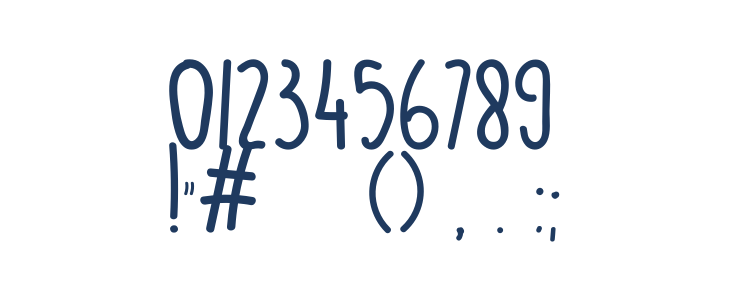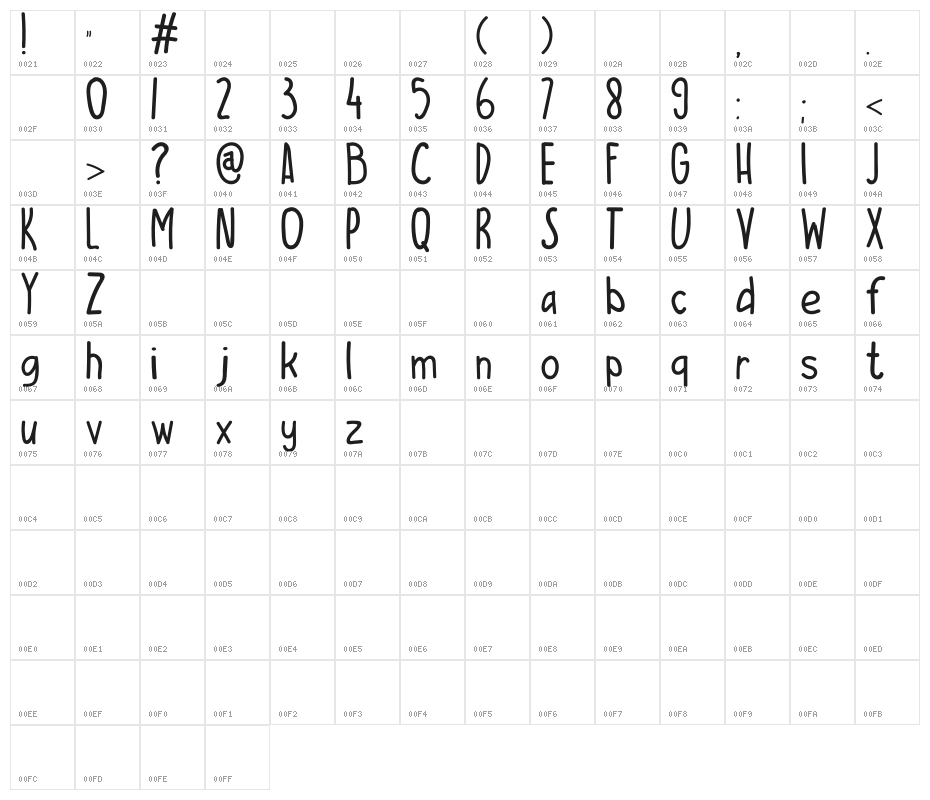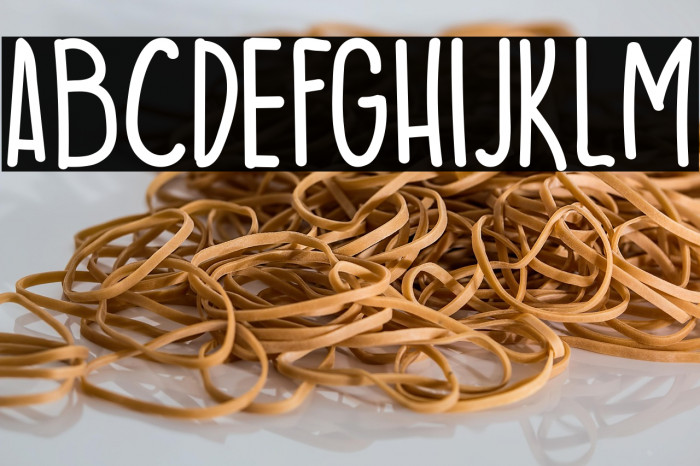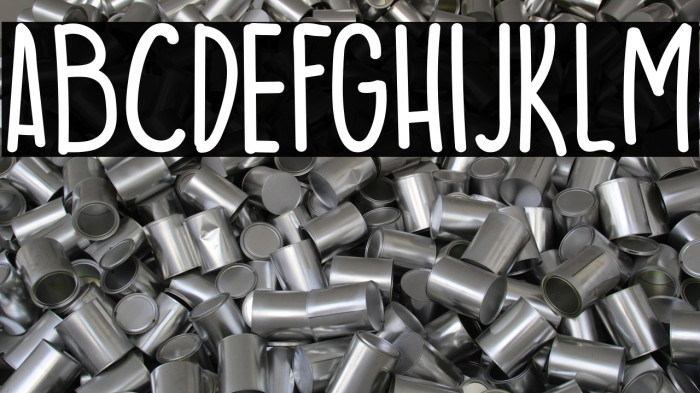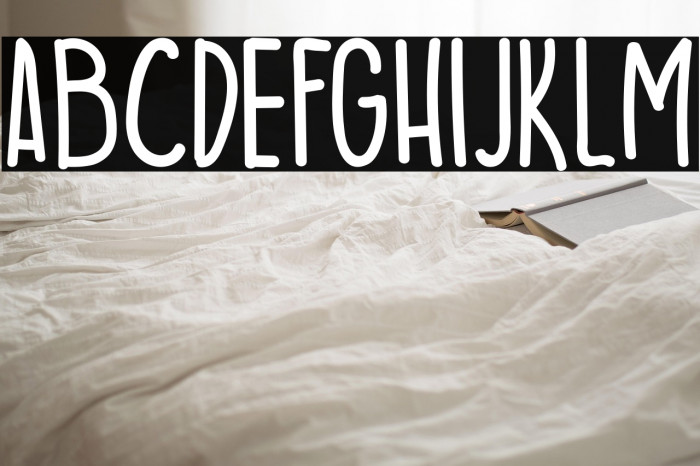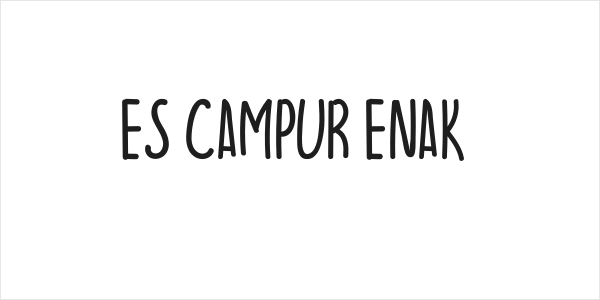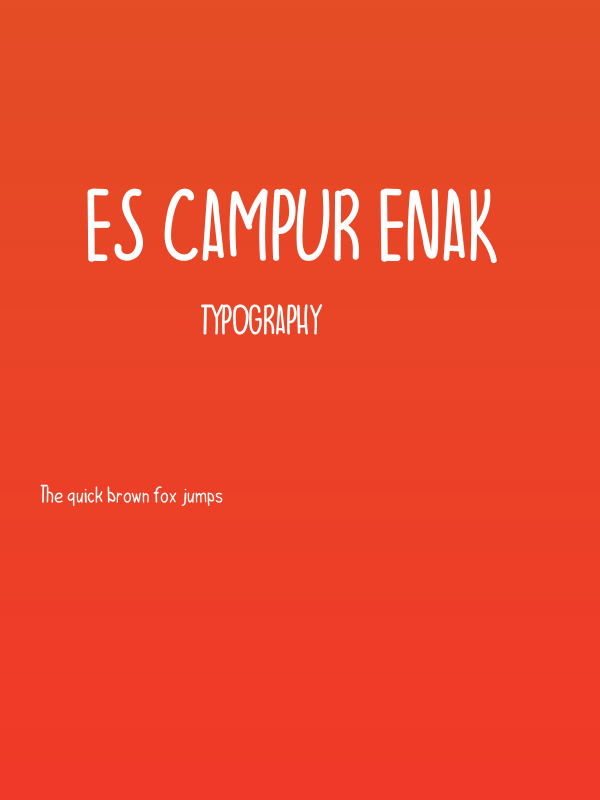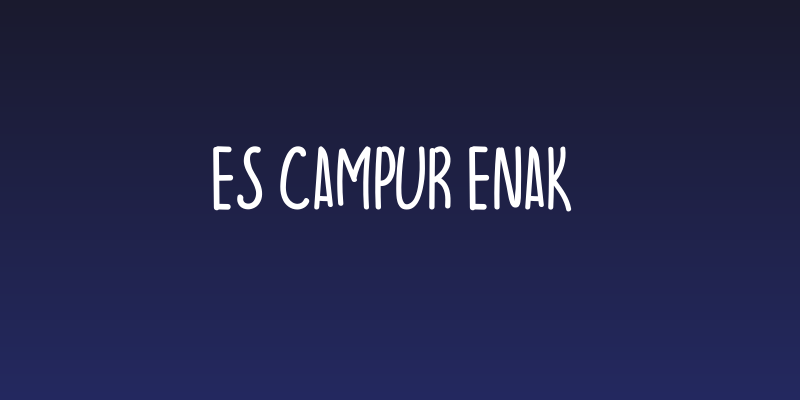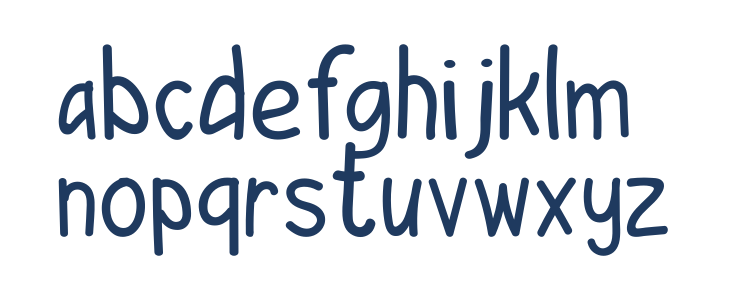
ES CAMPUR ENAK Font
ES CAMPUR ENAK Description
This playful and quirky font features a handwritten style with a casual and informal appearance. The letters are slightly irregular, giving it a unique and personal touch. The uppercase characters are tall and narrow, while the lowercase letters maintain a consistent height, adding to the font's charm. Numbers and special characters are designed with the same whimsical flair, making them stand out. The overall design is approachable and friendly, perfect for projects that require a touch of personality and creativity.